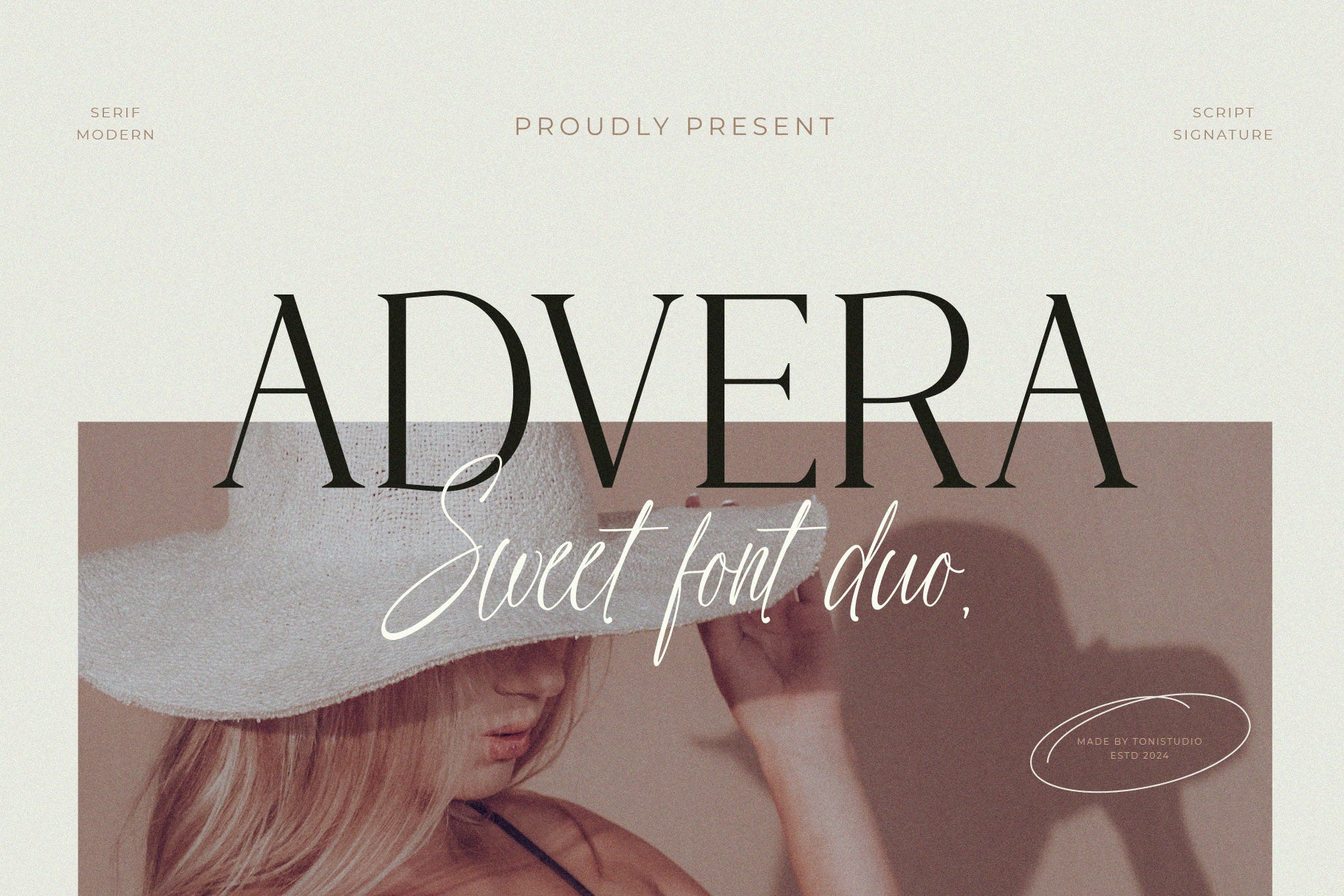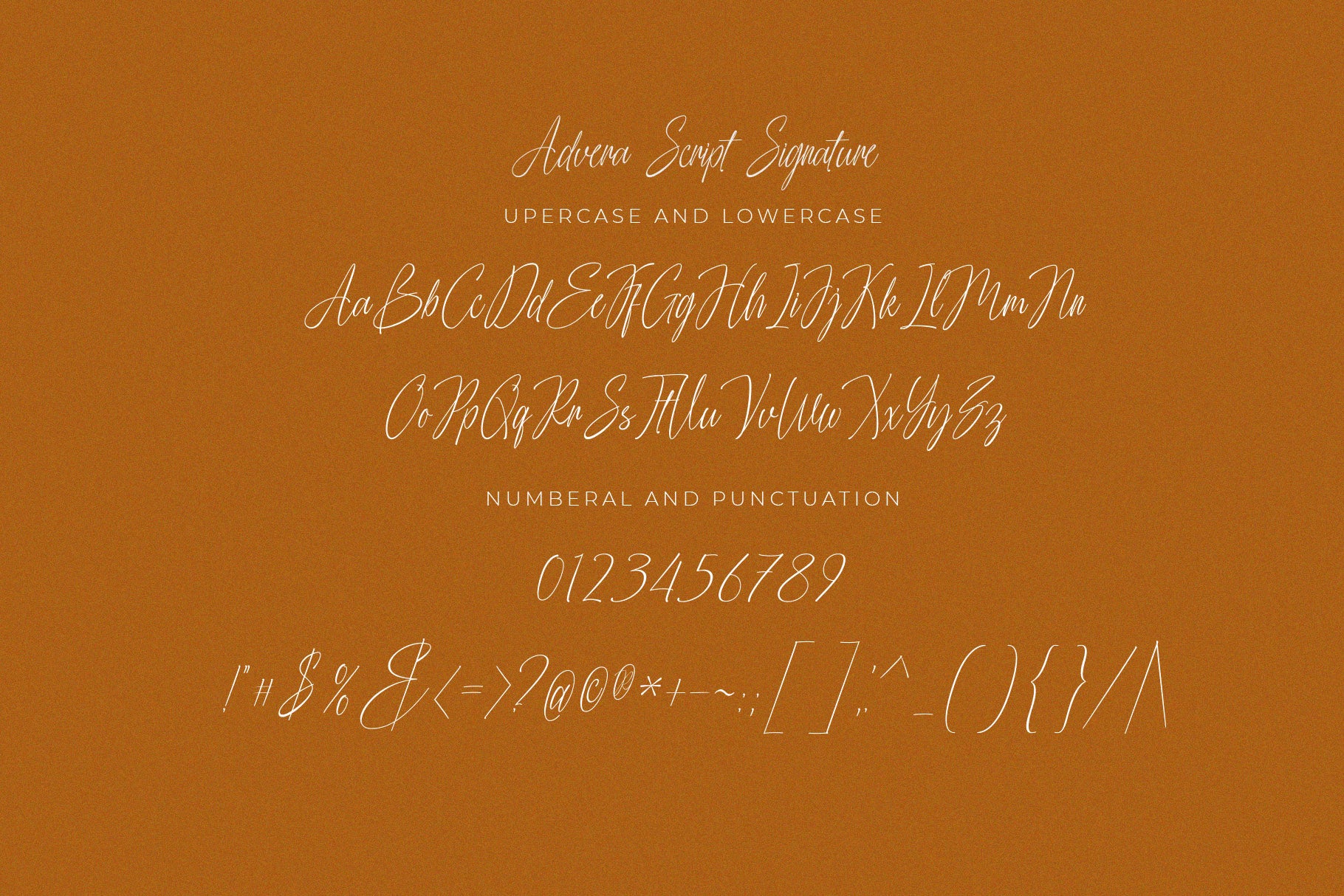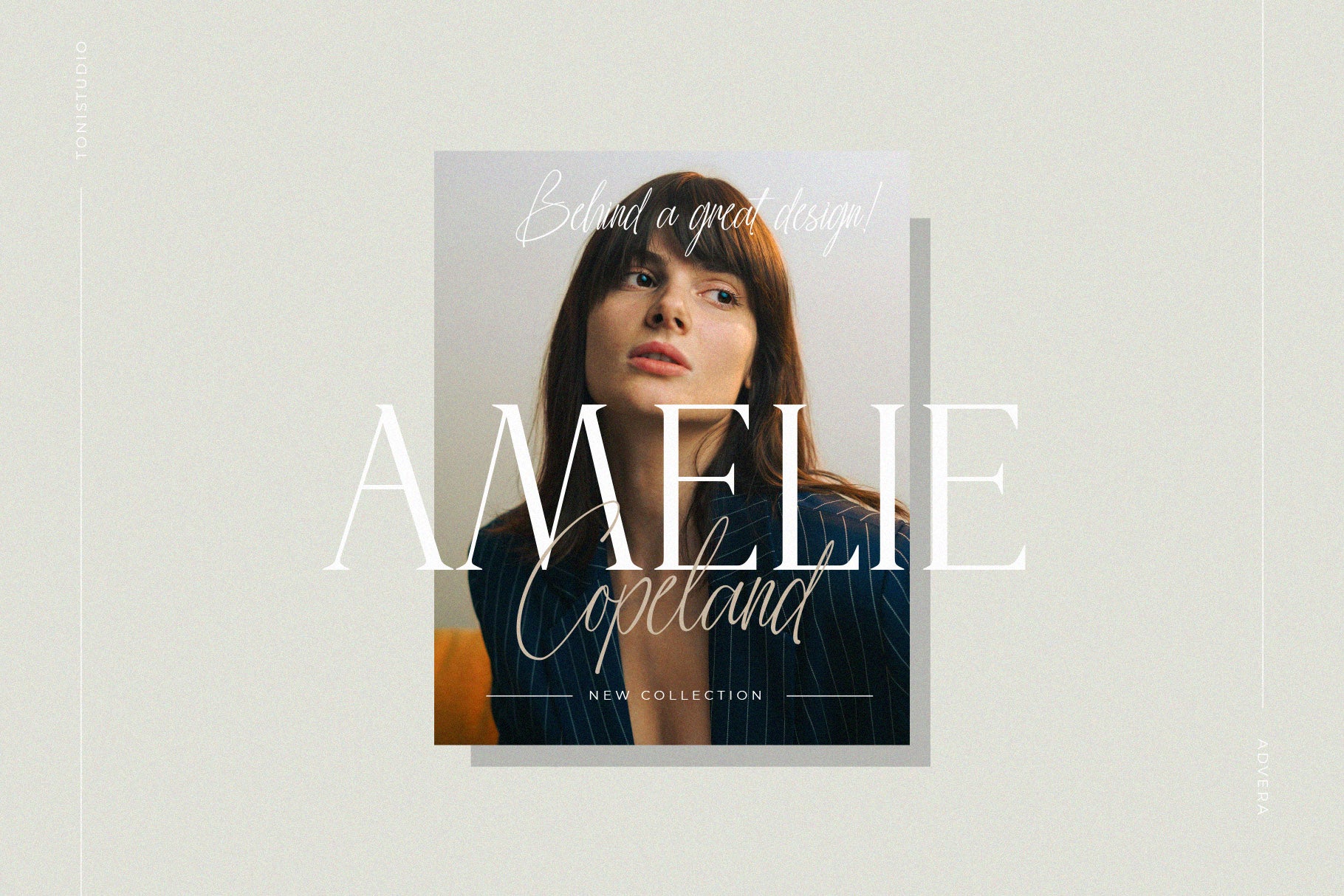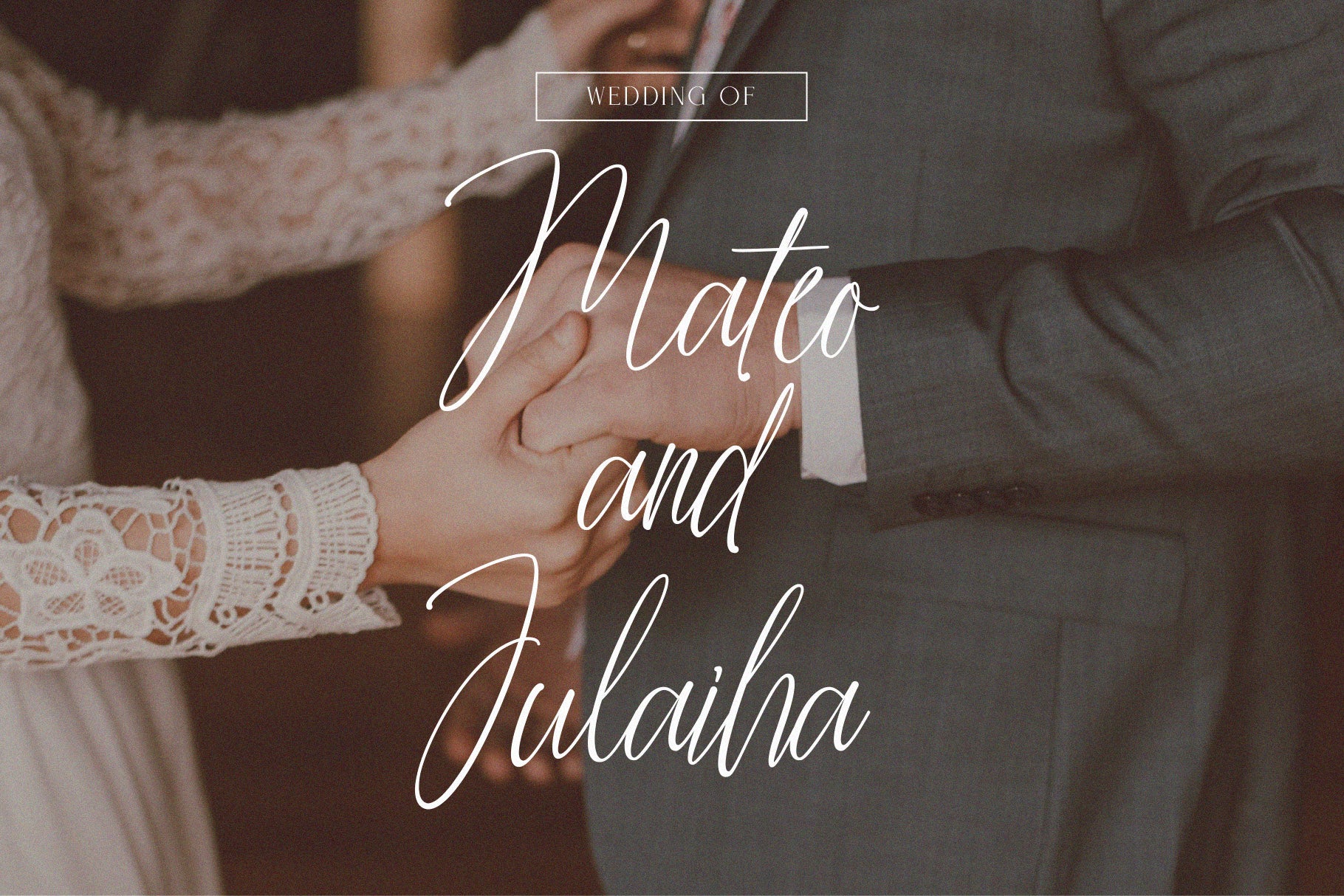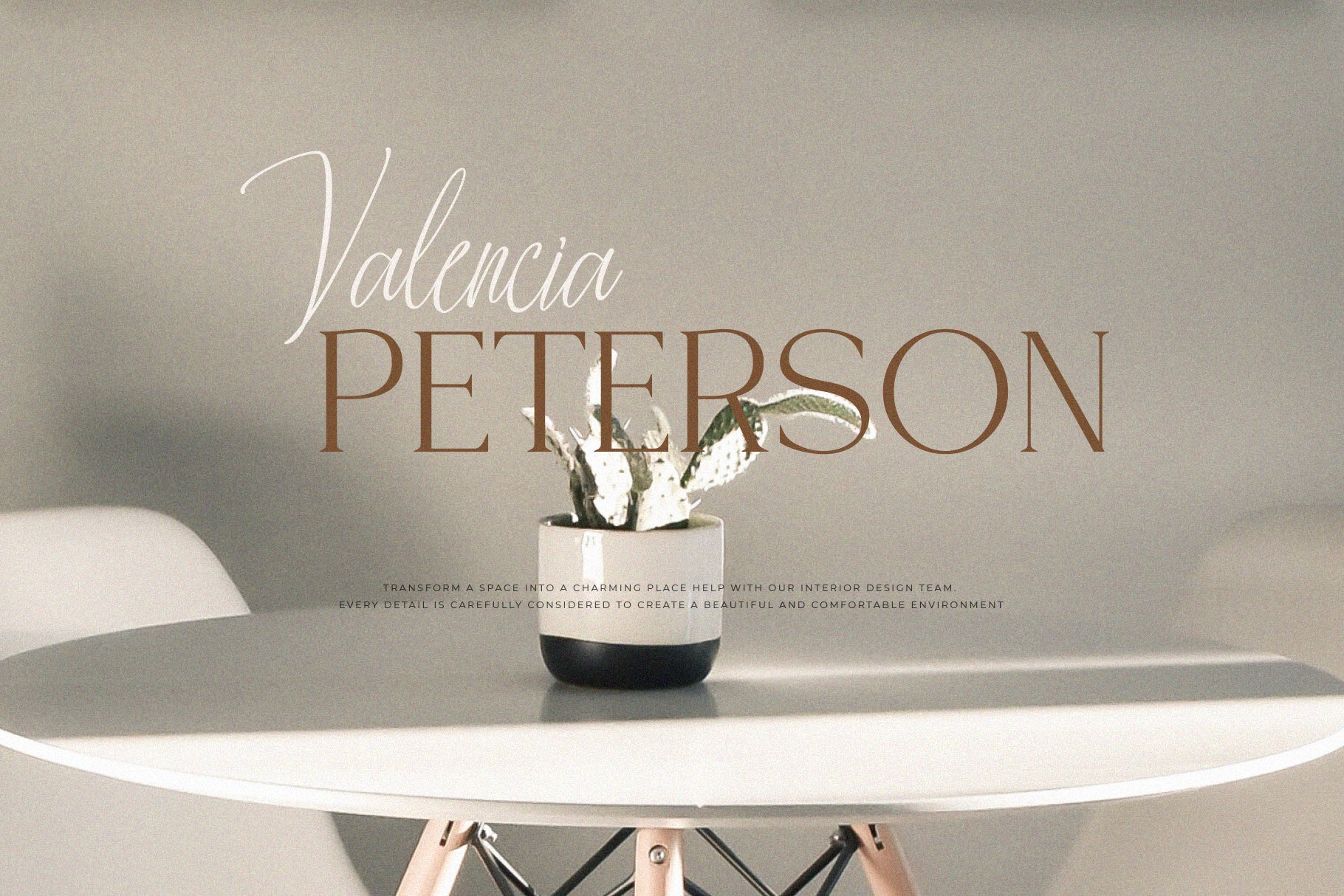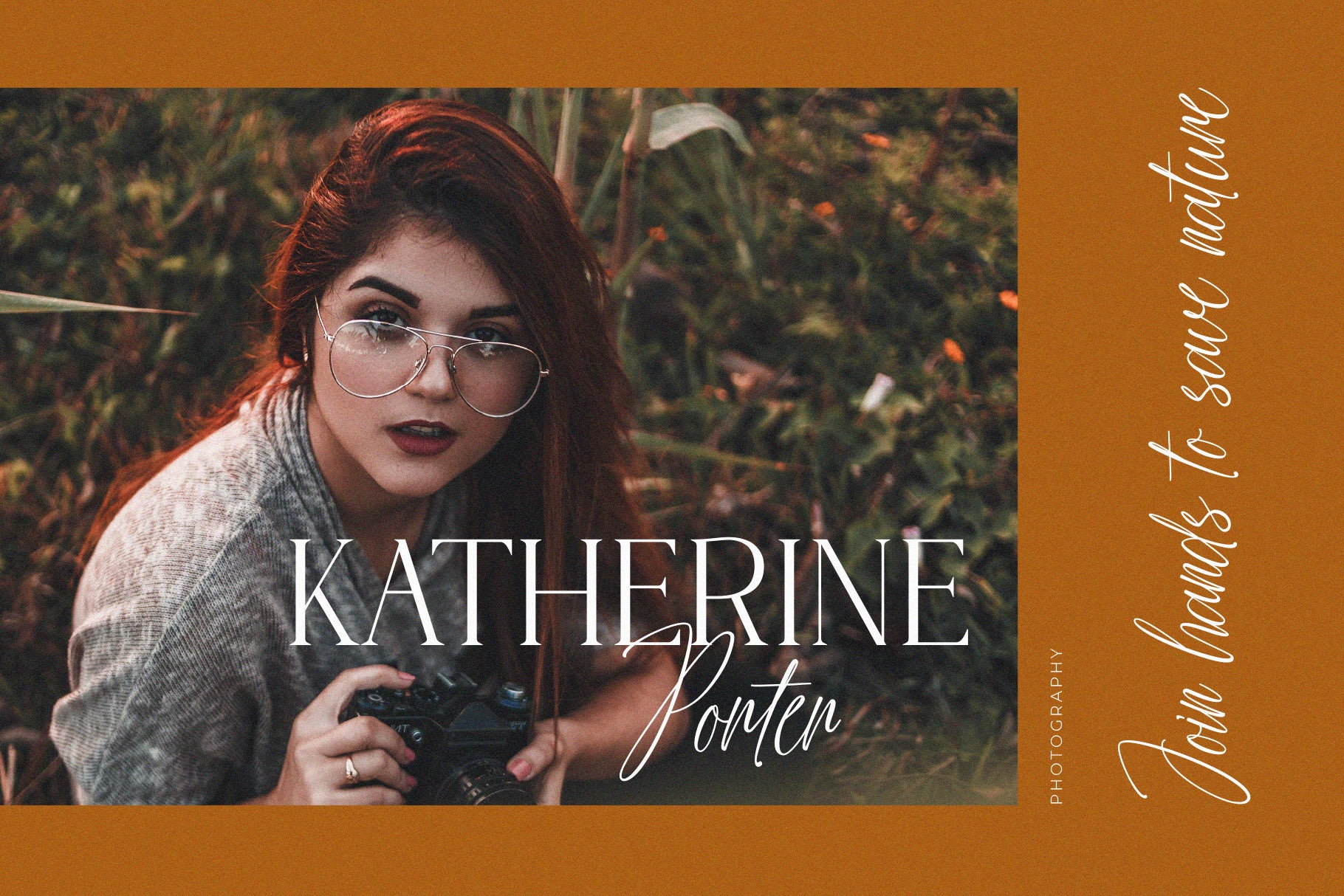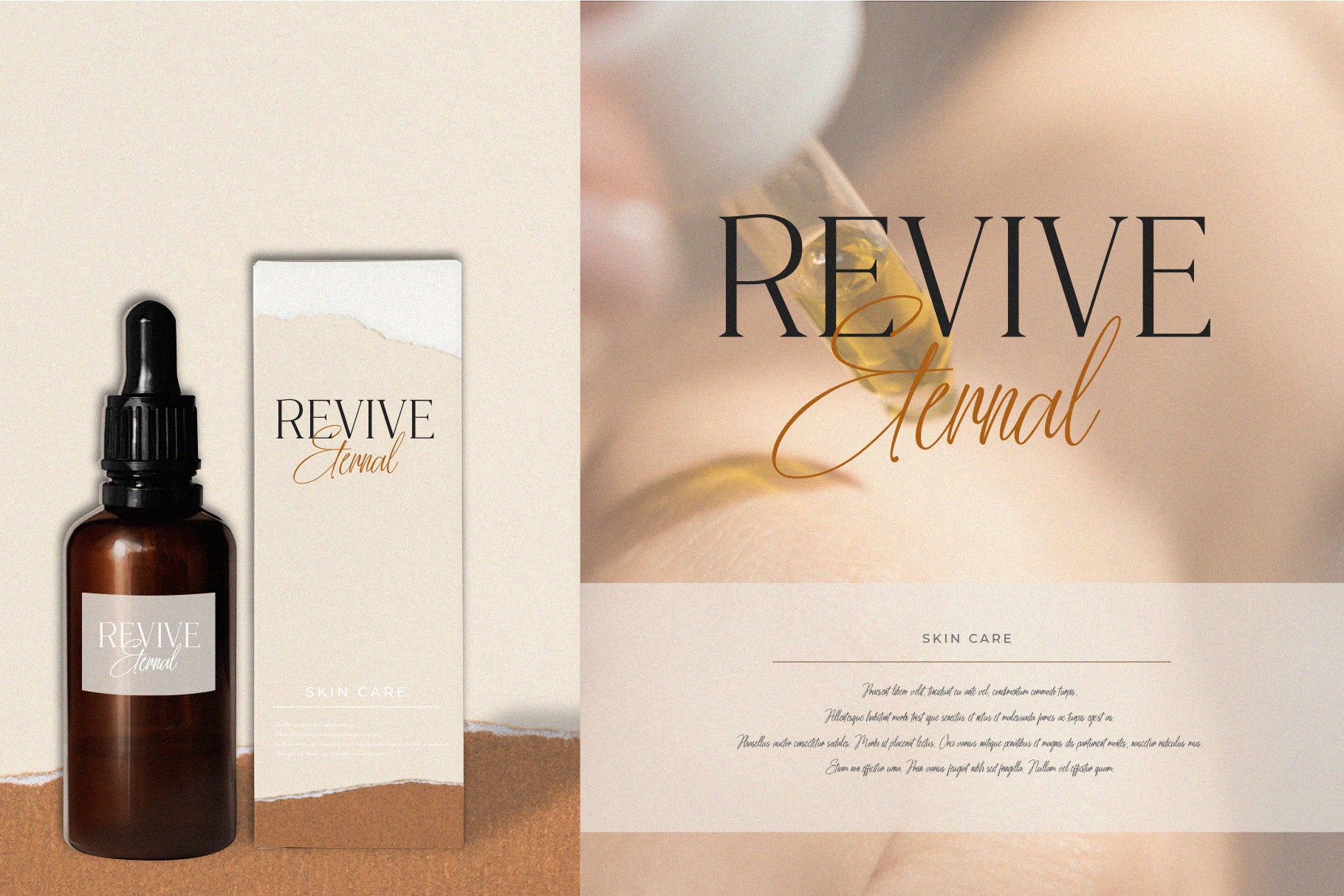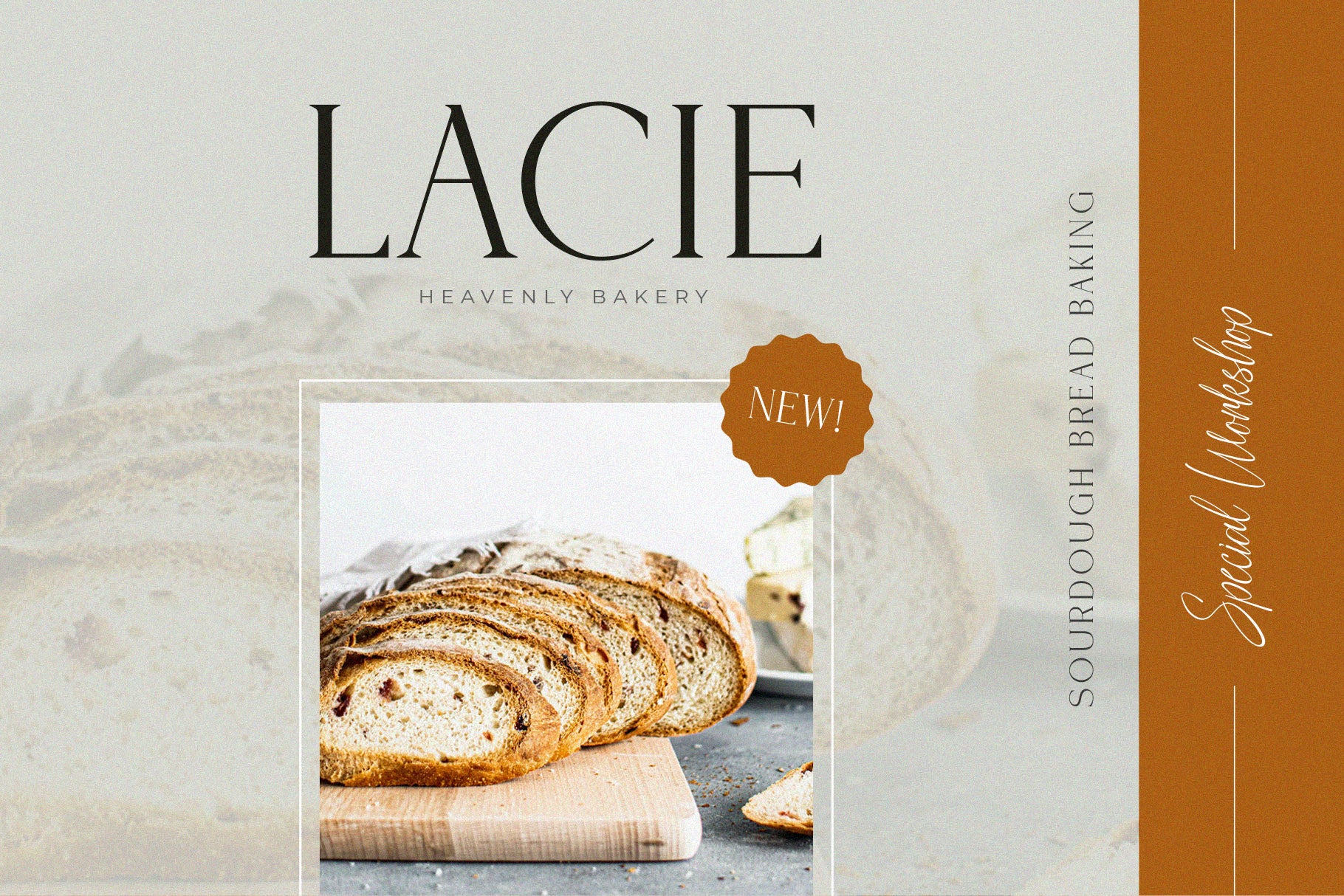
ADVERA || font duo
Introducing ADVERA Font Duo by Toni Studio : An elegant serif typeface combined with signature script. With its modern and minimalist appearance, a beautiful combination of fonts that will give elegance and style to your design. ADVERA brings a beautiful, clean look to websites, logos, brand identities, quotes and anything you can think of!, This beautiful font will attract your audience and make promotions stand out in your projects.